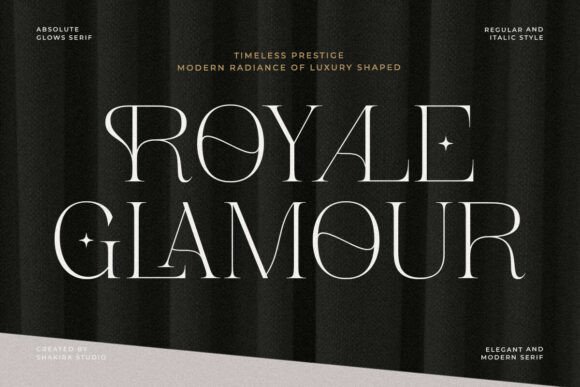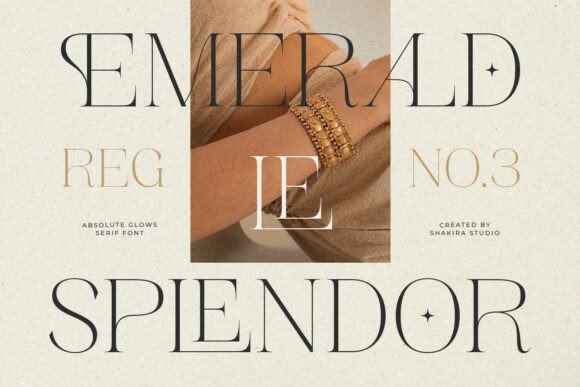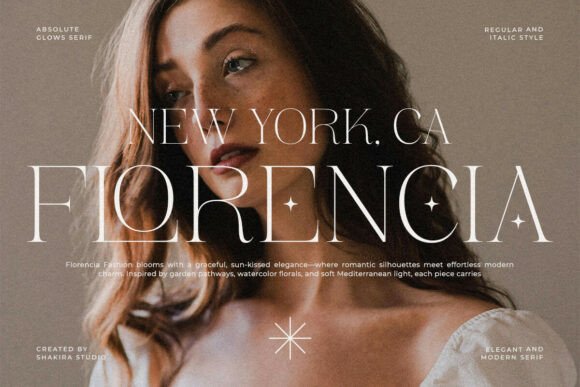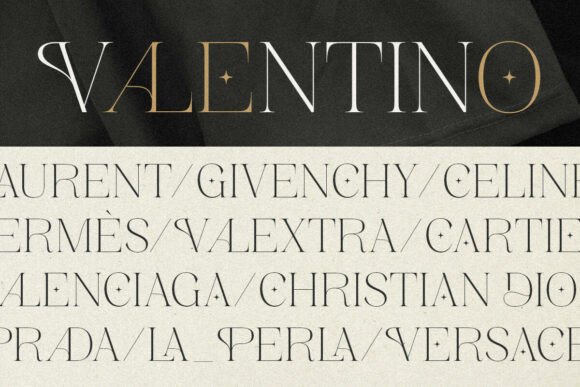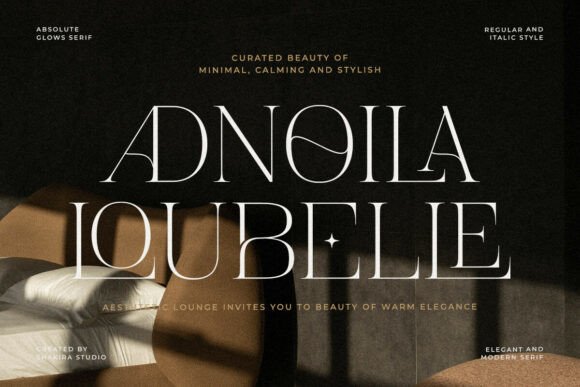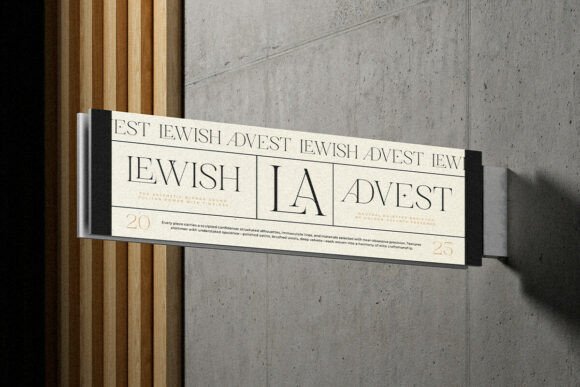
Introducing Absolute Glows Font: Elevate Your Designs with Timeless Elegance
In the world of typography, a well-crafted font can make all the difference in elevating a design from ordinary to extraordinary. For designers and crafters seeking to create luxurious and premium visual identities, Absolute Glows Font is a game-changer. This modern elegant serif typeface is specifically built for high-end creative projects, offering a perfect blend of timeless sophistication and modern elegance.
Refined Curves and Proportions
Absolute Glows Font boasts refined curves, graceful proportions, and a stylish structure that make it ideal for a wide range of applications, including logos, packaging, invitations, editorials, and fashion brands. The font’s elegant design ensures that it can be used in various contexts, from digital platforms to print materials, without losing its luxurious feel.
Perfect for Luxury Branding and Premium Visual Identity
Luxury branding requires attention to detail and a deep understanding of what makes a brand stand out. Absolute Glows Font is designed to help designers create premium visual identities that exude sophistication and elegance. Whether you’re working on a high-end fashion brand, a luxury product, or a prestigious service, this font is sure to impress.
Timeless Sophistication Meets Modern Elegance
Absolute Glows Font strikes the perfect balance between timeless sophistication and modern elegance. Its classic serif design ensures that it remains relevant for years to come, while its modern twists and refined features keep it fresh and exciting. This font is perfect for designers seeking polished, premium typography that will elevate their designs to the next level.
Versatility and Flexibility
One of the key benefits of Absolute Glows Font is its versatility and flexibility. The font can be used in a variety of contexts, from headlines and titles to body text and captions. Its elegant design ensures that it can be paired with a range of other fonts and design elements, making it easy to incorporate into existing brand identities.
Why Choose Absolute Glows Font?
- Modern elegant serif typeface: Perfect for luxury branding and premium visual identity
- Refined curves and proportions: Ideal for logos, packaging, invitations, editorials, and fashion brands
- Timeless sophistication and modern elegance: Ensures that your designs remain relevant for years to come
- Polished and premium typography: Elevate your designs with high-end typography
- Versatile and flexible: Can be used in a variety of contexts and paired with other design elements
Tips for Using Absolute Glows Font
To get the most out of Absolute Glows Font, here are a few tips to keep in mind:
- Use it for headlines and titles: The font’s elegant design makes it perfect for grabbing attention and creating a lasting impression
- Pair it with complementary fonts: Experiment with different font combinations to create a unique and cohesive brand identity
- Experiment with different sizes and colors: The font’s versatility makes it easy to use in a range of contexts and design elements
Absolute Glows Font is a powerful tool for designers and crafters seeking to create luxurious and premium visual identities. Its modern elegant serif design, refined curves, and stylish structure make it perfect for a wide range of applications. With its timeless sophistication and modern elegance, this font is sure to elevate your designs to the next level. Whether you’re working on a high-end fashion brand, a luxury product, or a prestigious service, Absolute Glows Font is the perfect choice.